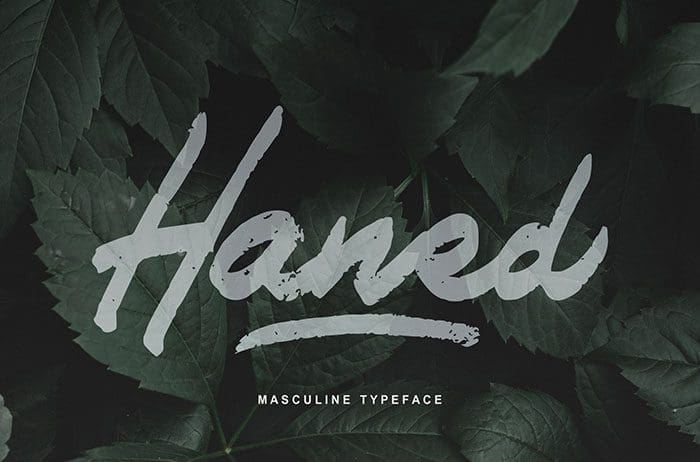
Haned Handwritten Font
Haned is a strong and cool handwritten font with a unique style. This font is suitable for any project like web, product, corporate, and many others. Thanks to Vunira for sharing this font. Take a look at this portfolio for more of his stunning fonts.